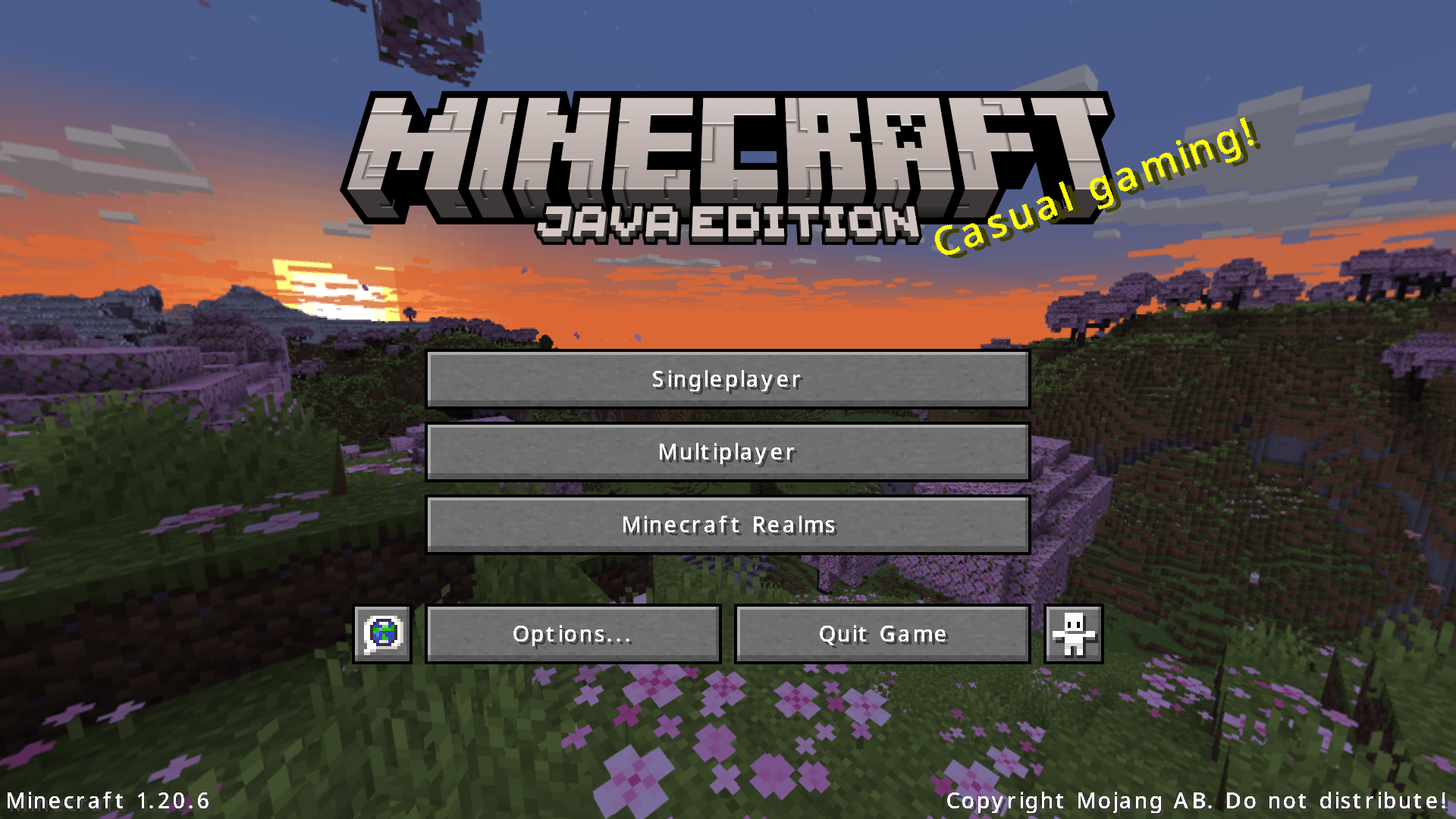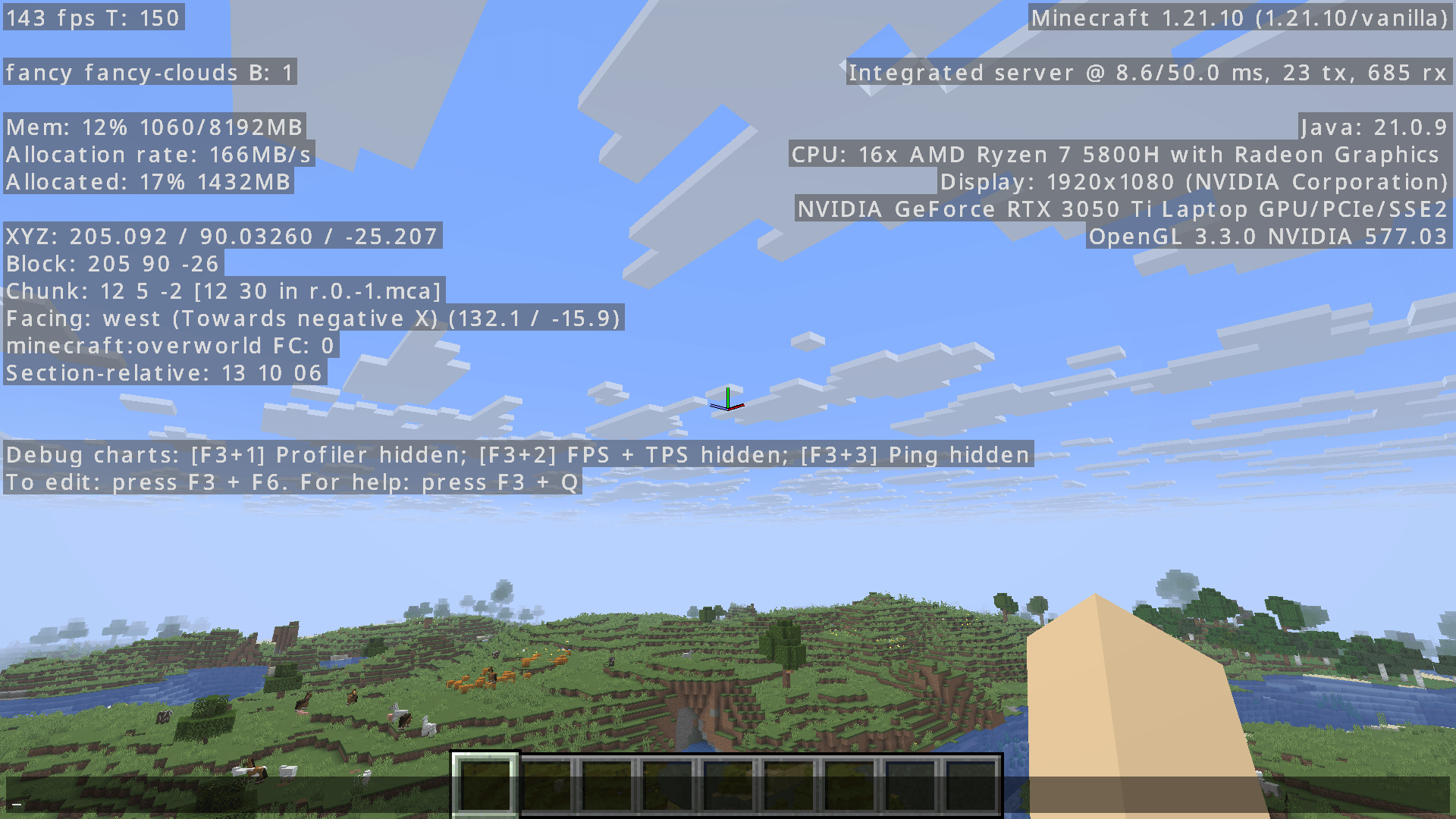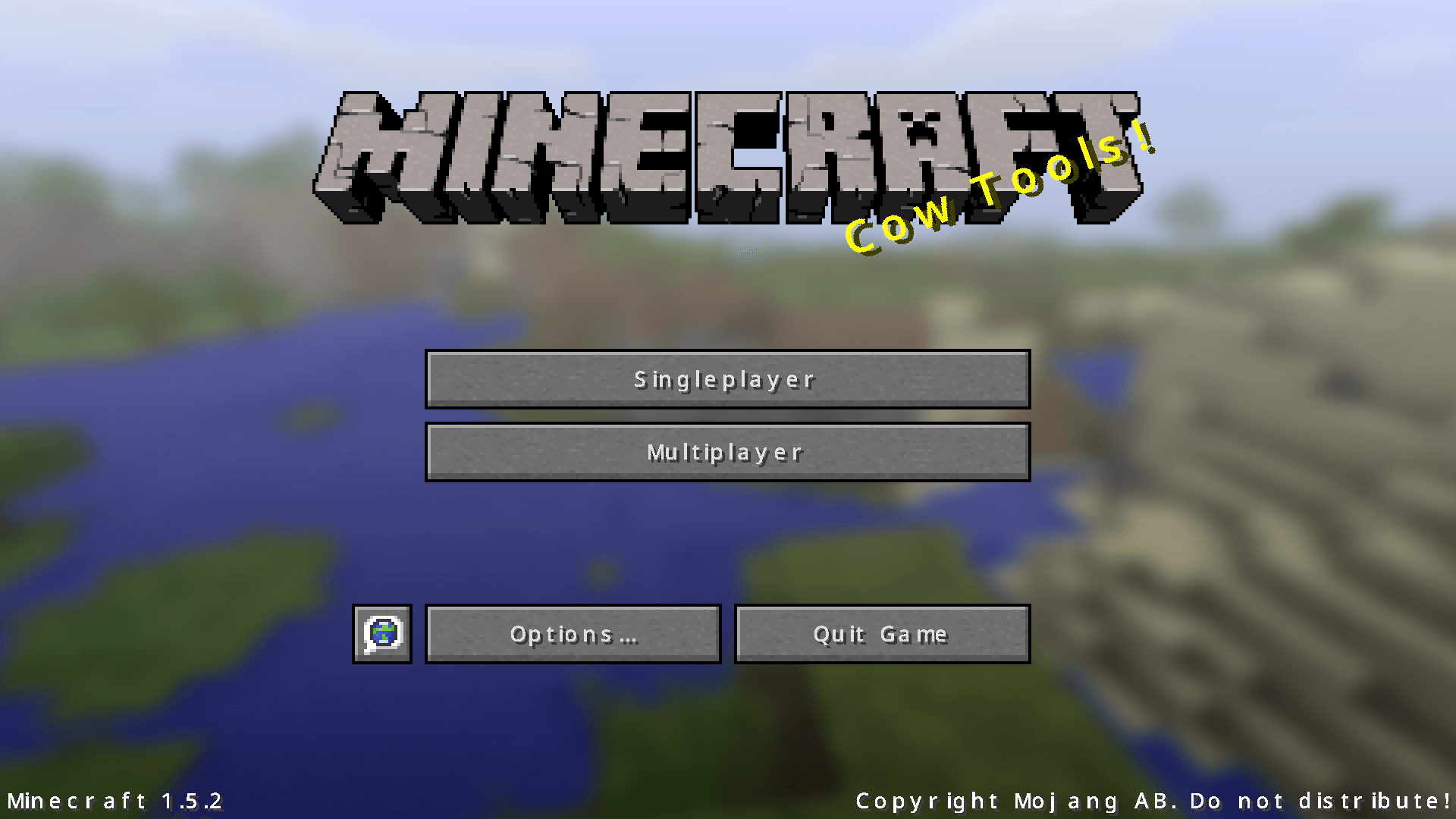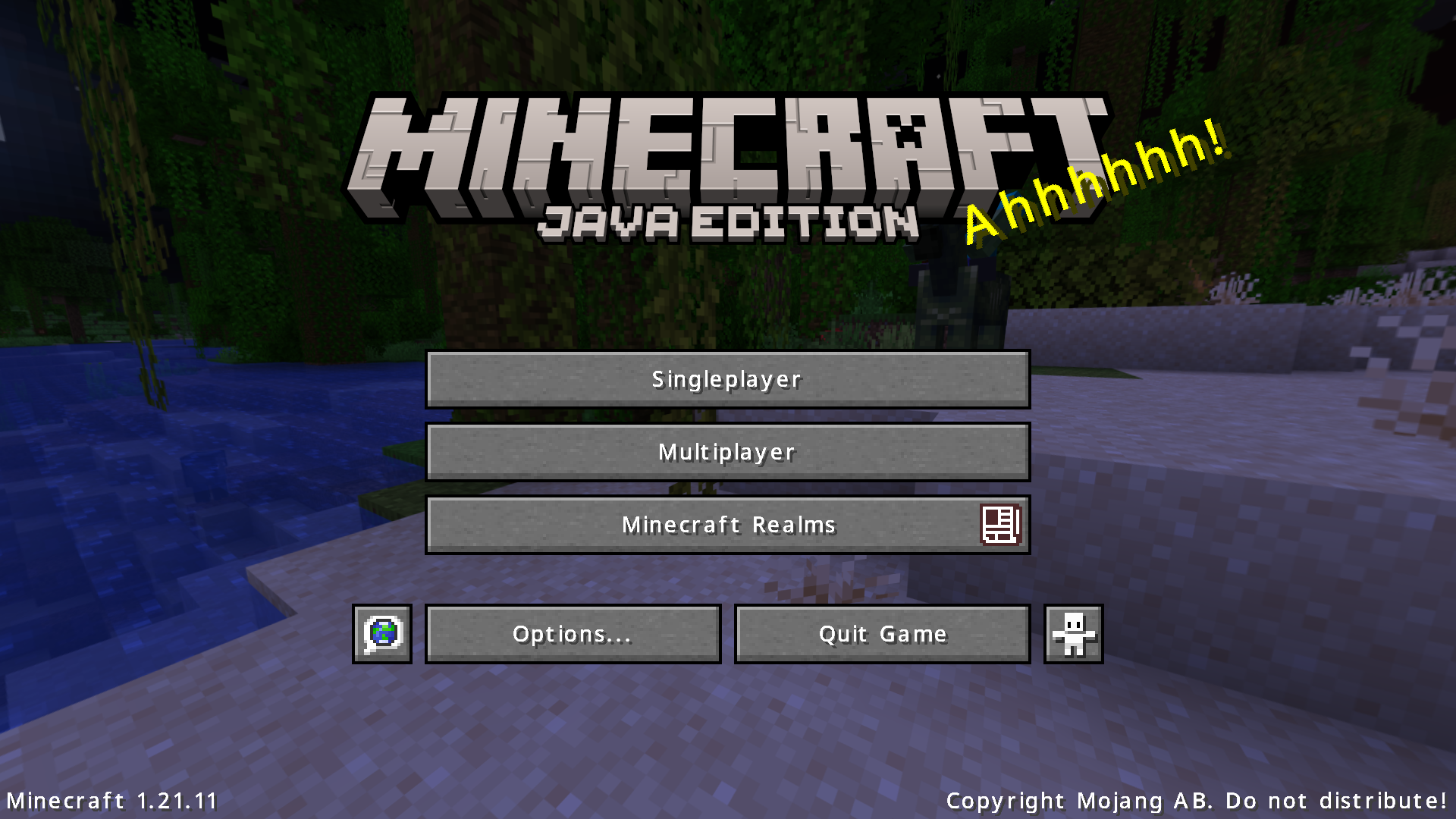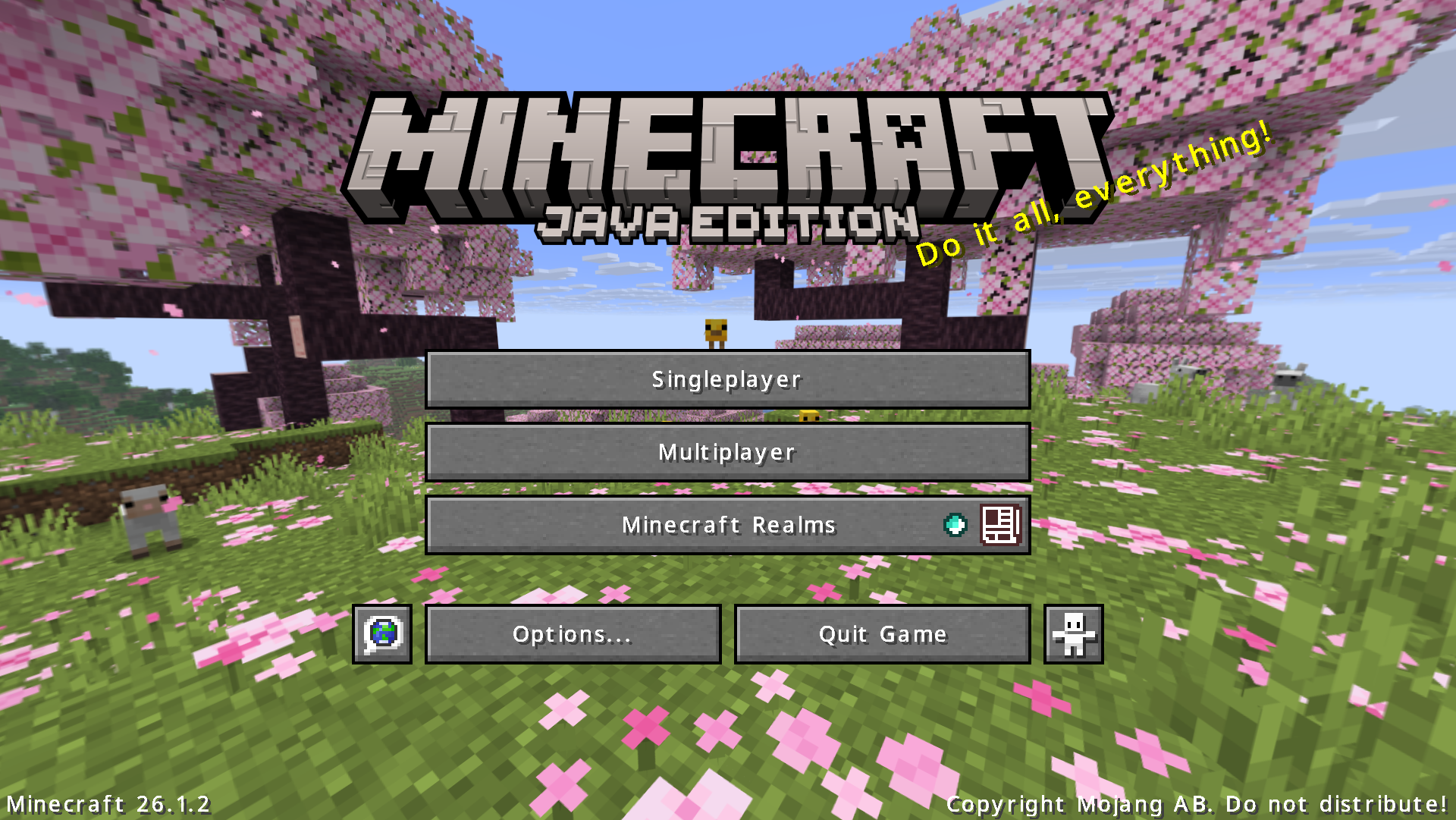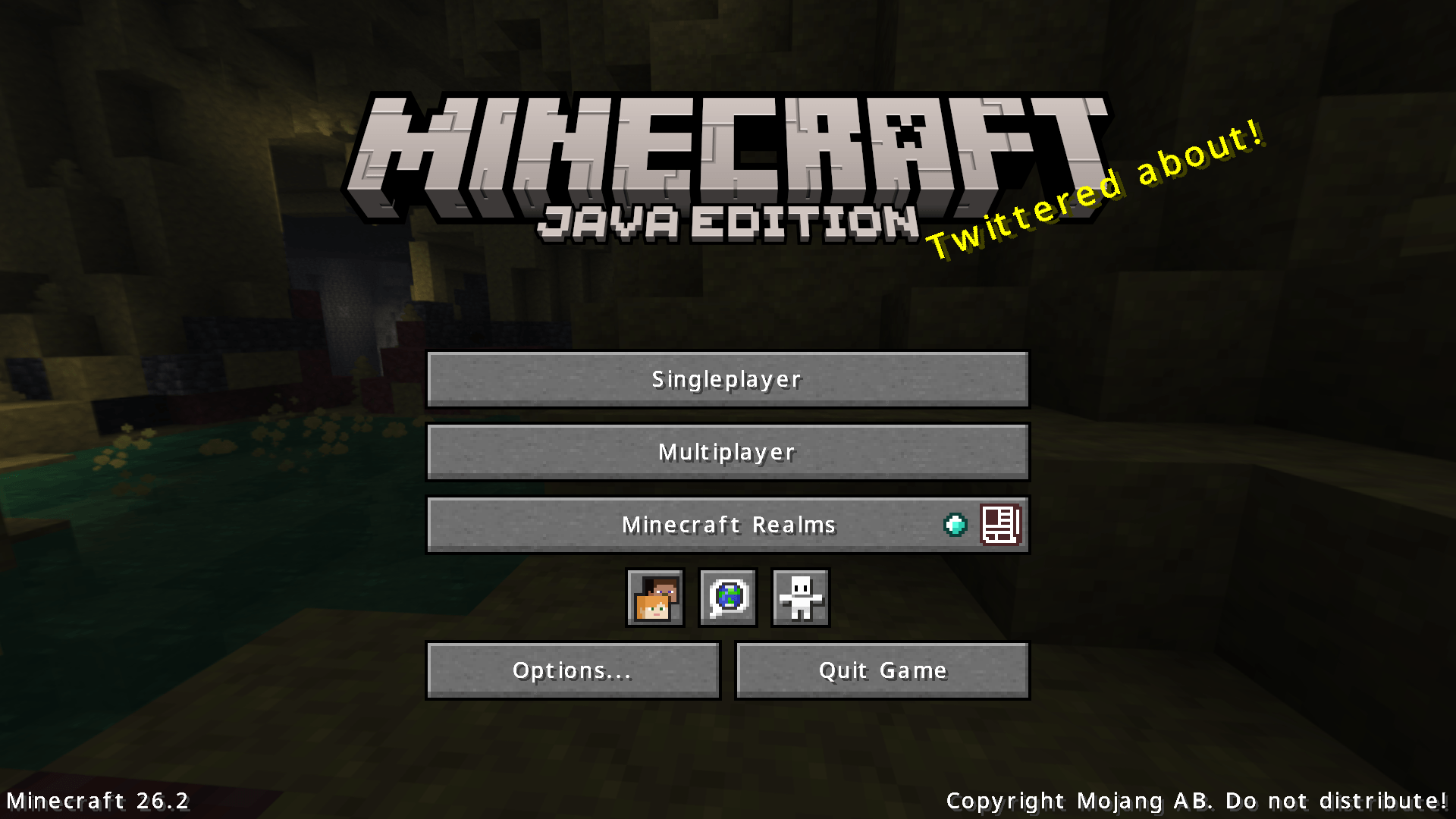
Are you tired of Minecraft's thick and large default font?
Even if you enable Force Unicode Font, it will look rough on a high-resolution screen.
This resource pack will solve these problems so that you can see a more beautiful, modern and smooth font when you play Minecraft.
- HD Version: There are 5 variants, JP, KR, CN, TW and HK. The font is taken from the Noto Sans font family commissioned by Google.
1. JP: CJK font is Noto Sans Japanese.
2. KR: CJK font is Noto Sans Korean.
3. CN: CJK font is Noto Sans Simplified Chinese.
4. TW: CJK font is Noto Sans Traditional Chinese.
5. HK: CJK font is Noto Sans Hong Kong.
- Basic Version: There are also 5 variants, JP, KR, CN, TW and HK. The font is also taken from the Noto Sans font family commissioned by Google. Since its content is basically the same as the HD version, it will not be repeated here. The difference is that the font uses a basic smoothing effect, designed for low-resolution screens or smaller GUI scales.
- Supreme Version: There are also 5 variants, JP, KR, CN, TW and HK. The font is also taken from the Noto Sans font family commissioned by Google. Since its content is basically the same as the HD version, it will not be repeated here. The difference is that the smoothness of the font is very high. This version is suitable for screen resolutions of QHD (2560 × 1440), 4K UHD (3840 × 2160) or above. It only supports Minecraft 1.13 or above.
This resource pack supports emojis (emoticons), so you can use it in the game. The font is taken from the Noto Emoji font family commissioned by Google.
It also supports some fancy characters, so you can use it in the game. The font is taken from the Noto Sans font family, the Noto Sans Math font family, and the Noto Sans Symbols font family commissioned by Google.
To use them, you don't need to use commands such as /tellraw and /title. You just need to use any online fancy text generators, and then copy and paste the generated fancy text into the game.
- Emojis and fancy characters only support version 1.16 and above. Version 1.15.2 and below are not supported. If you try to use emojis and fancy characters in version 1.15.2 or below, it will be displayed as garbled characters or nothing.
- Since Minecraft does not support combining characters, some emojis still cannot be displayed correctly, such as "šØš©š§" may be displayed as "šØš©š§". Similarly, some of the fancy text like "MŅiŅnŅeŅcŅrŅaŅfŅtŅ", "MŅĶĶ̳ĶĢįøÆĢ“Ģ̣̩̤ĢnŅĶĶ̬̤ĢĢĢĢe̶ĶĶĢĶĶĢ̽c̵Ķ̬̮̄ĢĢĶĢr̵Ķ̦ĶĢ«ĶĢaŅĢ«ĶĢĢĶĢfŅĶ̰̪ĢĢt̶ĶĢ£ĢĶĶĢĢĢ̾", etc. cannot be displayed correctly.
- In order to make the emoji colored by the game still display normally, only a single color version was made. The colored version will not be made to avoid distortion or become completely black problems after being colored by the game.
As Chinese characters have different standards in different countries or regions, as well as different screen resolutions, 15 versions have been specially designed, namely HD-Japanese version, HD-Korean version, HD-Chinese version, HD-Taiwan version, HD-Hong Kong version, Basic-Japanese version, Basic-Korean version, Basic-Chinese version, Basic-Taiwan version, Basic-Hong Kong version, Supreme-Japanese version, Supreme-Korean version, Supreme-Chinese version, Supreme-Taiwan version and Supreme-Hong Kong version.
Please observe the following picture carefully, and you will find some differences in the writing of some characters:
Due to different screen resolutions, there will be different display effects in different situations. Please see the picture below: